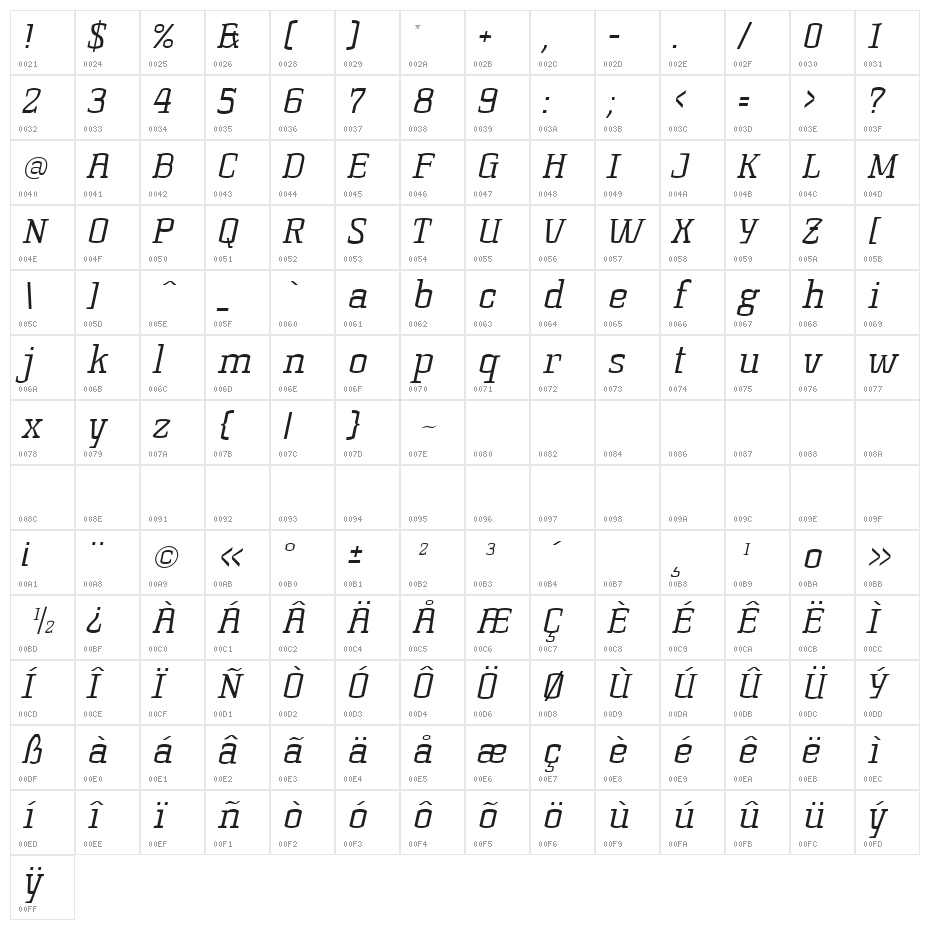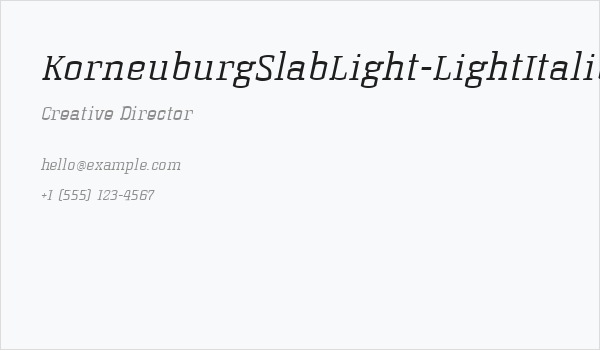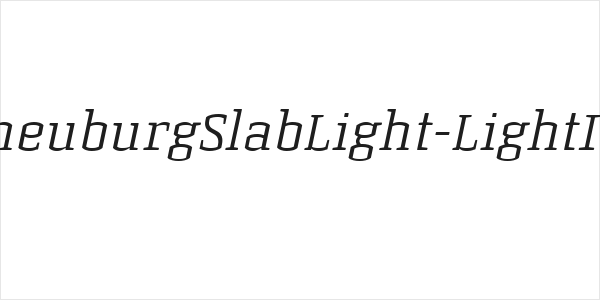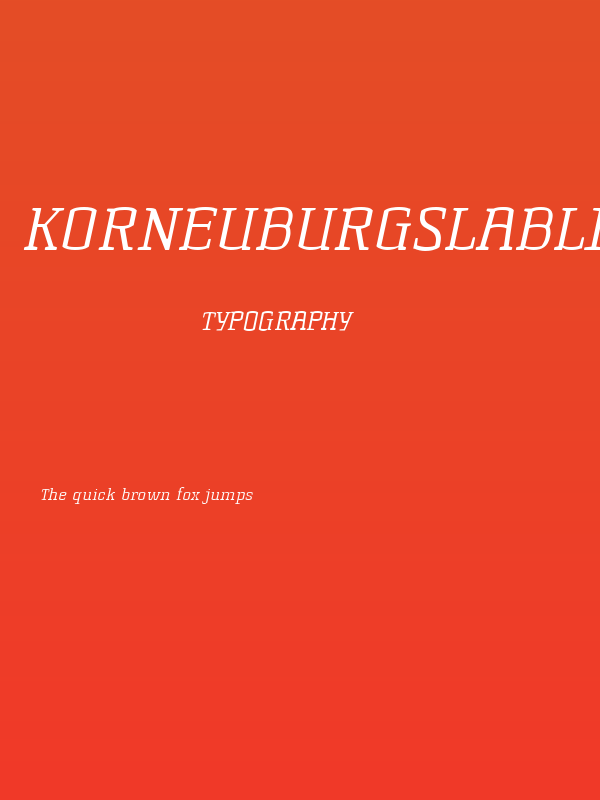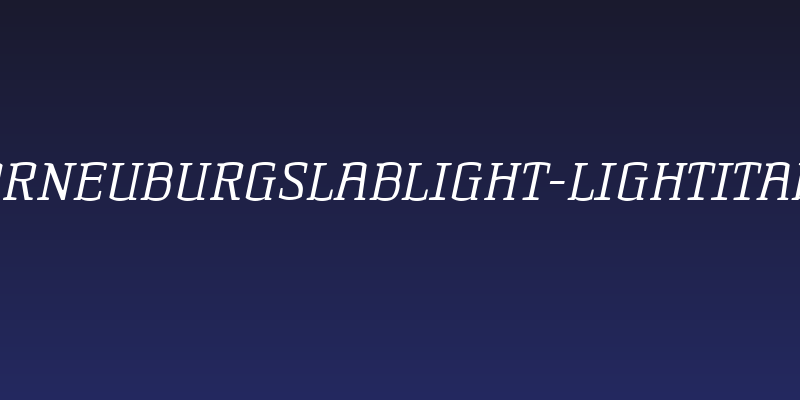
KorneuburgSlabLight-LightItalic Font
KorneuburgSlabLight-LightItalic Description
This font exhibits a modern and elegant style with a light and airy feel. The characters are slightly slanted, giving it an italic appearance, which adds a sense of motion and fluidity. The strokes are consistent and smooth, with a subtle contrast that enhances readability without being overpowering. The font maintains a clean and professional look, suitable for a variety of design applications. Its slab serif elements provide a touch of tradition while maintaining a contemporary edge. The spacing between characters is balanced, ensuring clarity and legibility across different sizes.
| Proposed Projects | Ideal for branding, editorial design, and digital content where a modern yet classic touch is desired. |